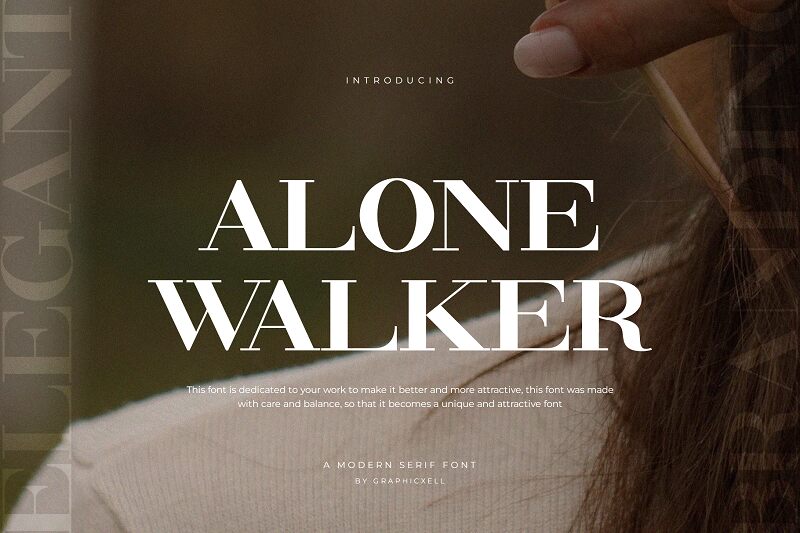
Alone Walker font by Graphicxell is an elegant expanded serif typeface characterized by its structured and timeless visual appearance. Its commanding letters stand out, exuding power and authority while maintaining a classic look that viewers easily recognize as sophisticated. Combining firmness with grace, this formal font meets all the requirements for high-aesthetic projects where proper messages need to be conveyed in elite style.
Because it can seamlessly integrate into various designs among multiple categories, Alone Walker is usable for logo design, advertising campaigns of printed or digital nature, artistic posters and flyers as well as social media updates. It’s also a fine choice for invitations; books; magazines; newspapers; etiquettes and labels; package design; brochures and catalogs amongst others. The best part? This free serif font is downloadable today!